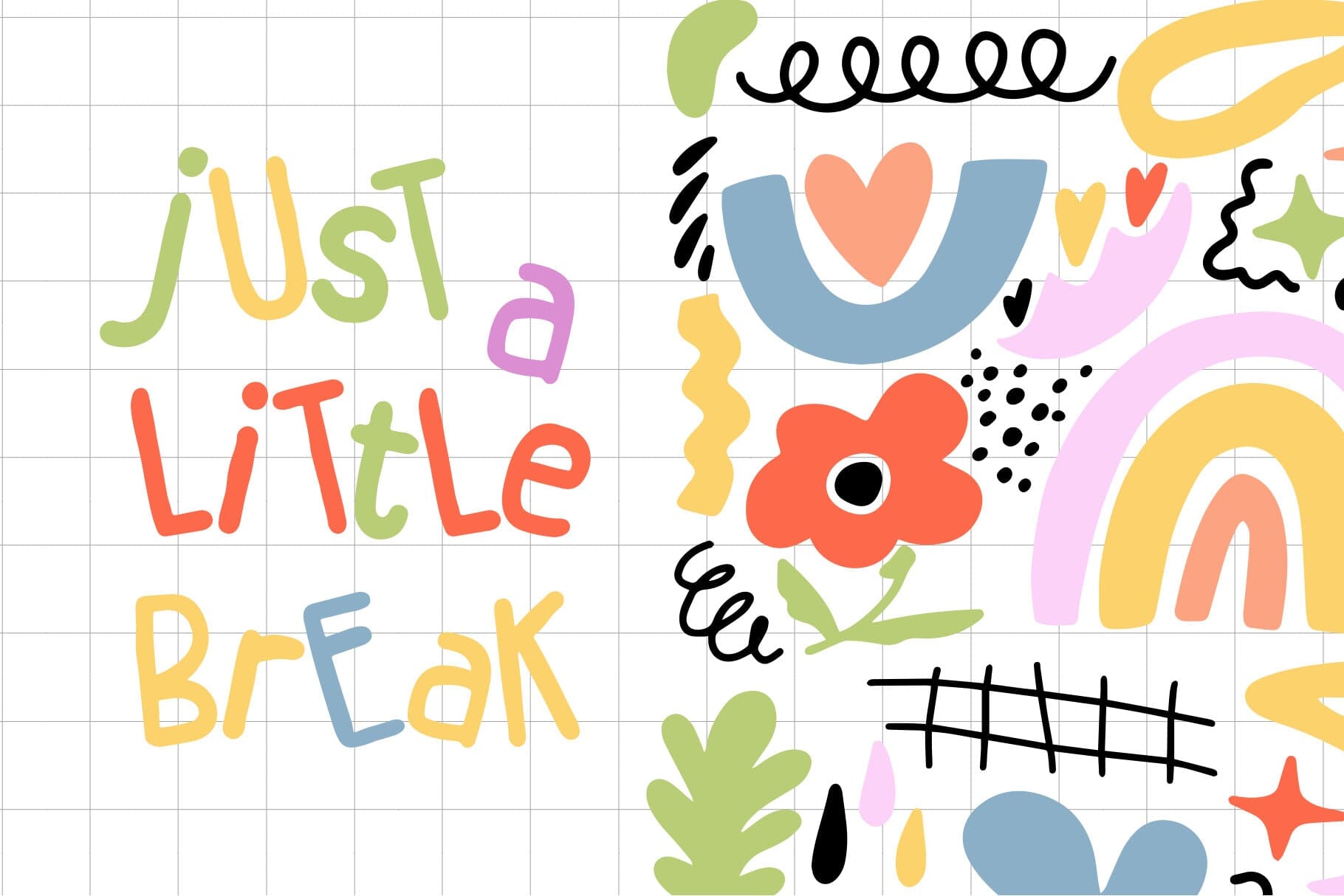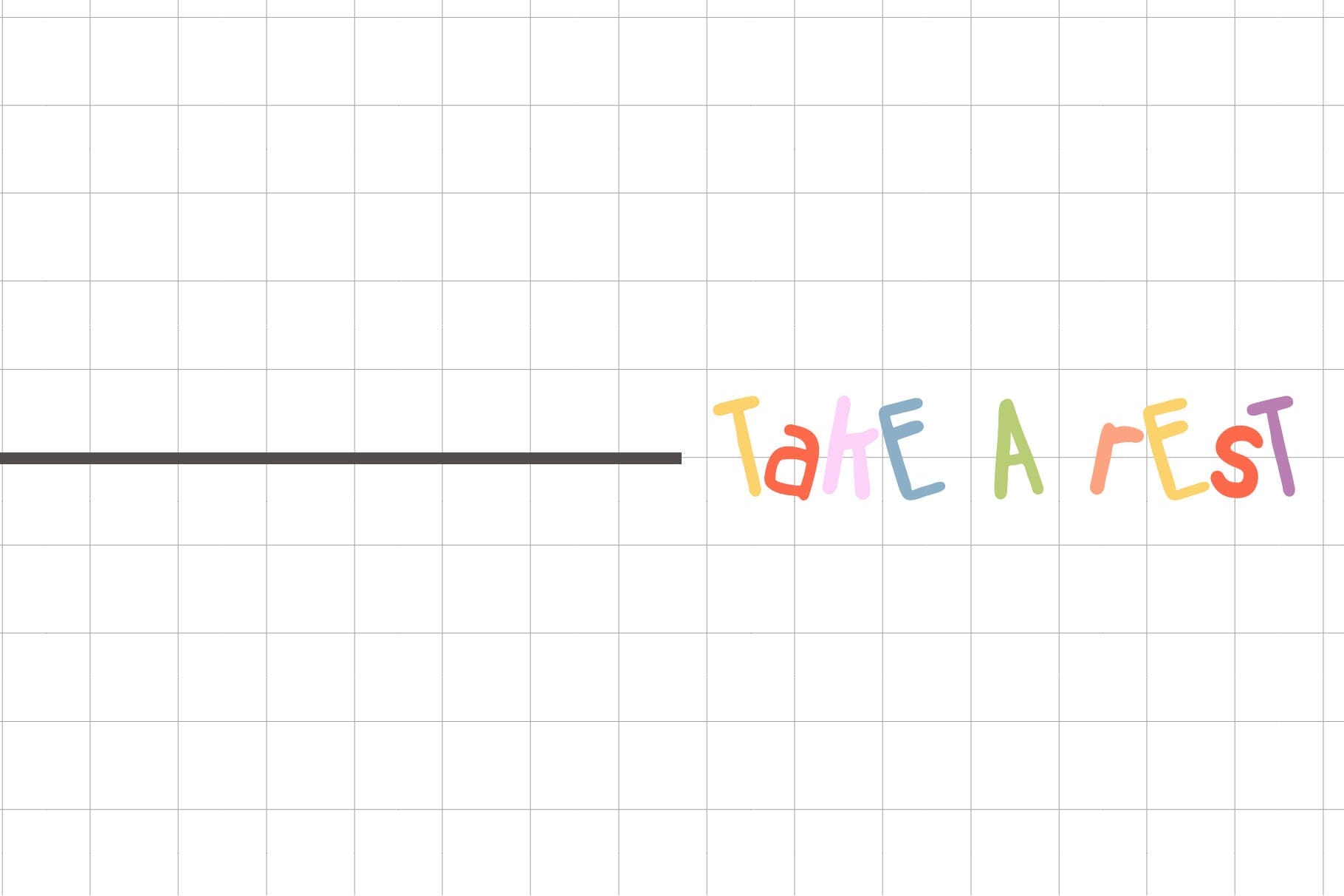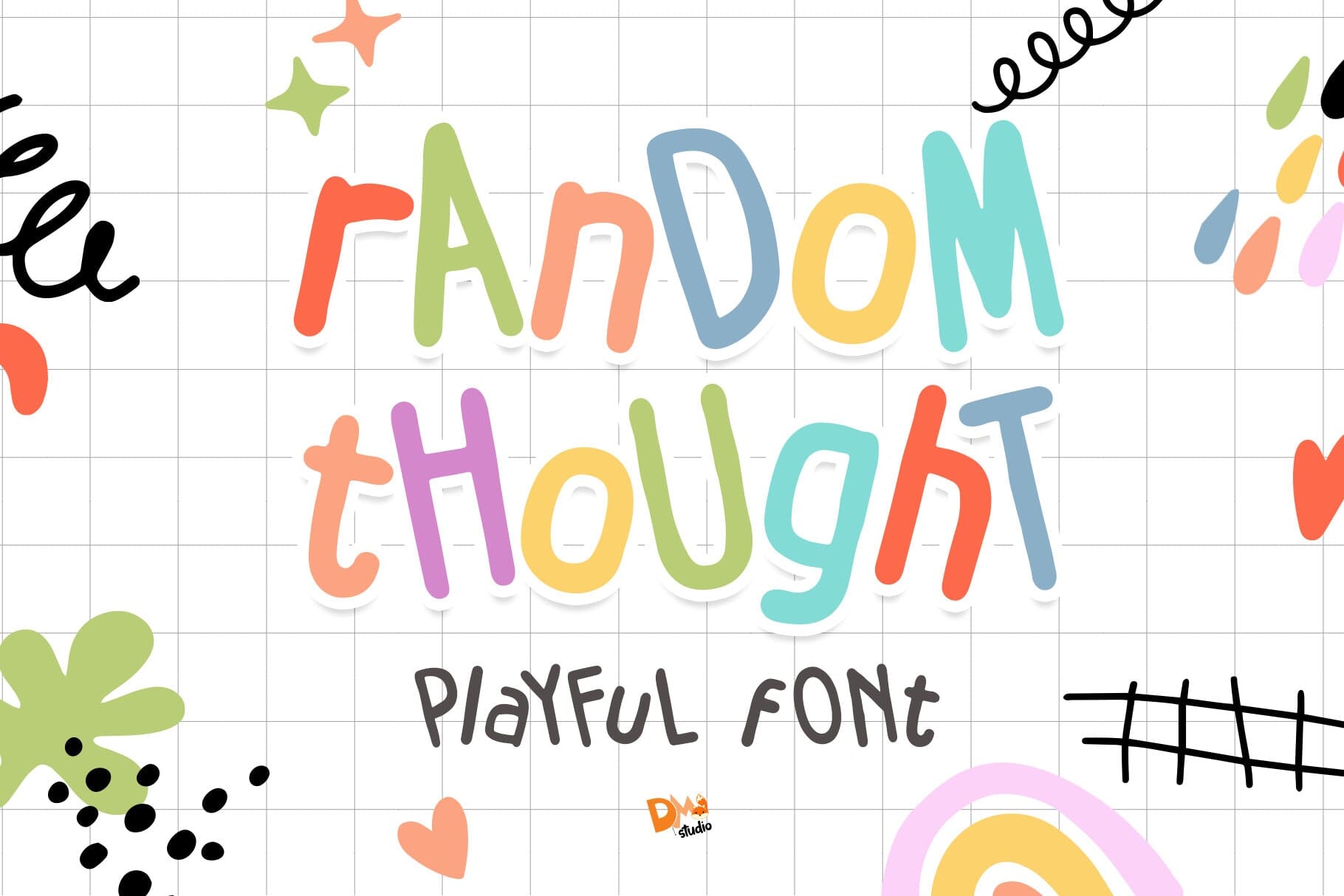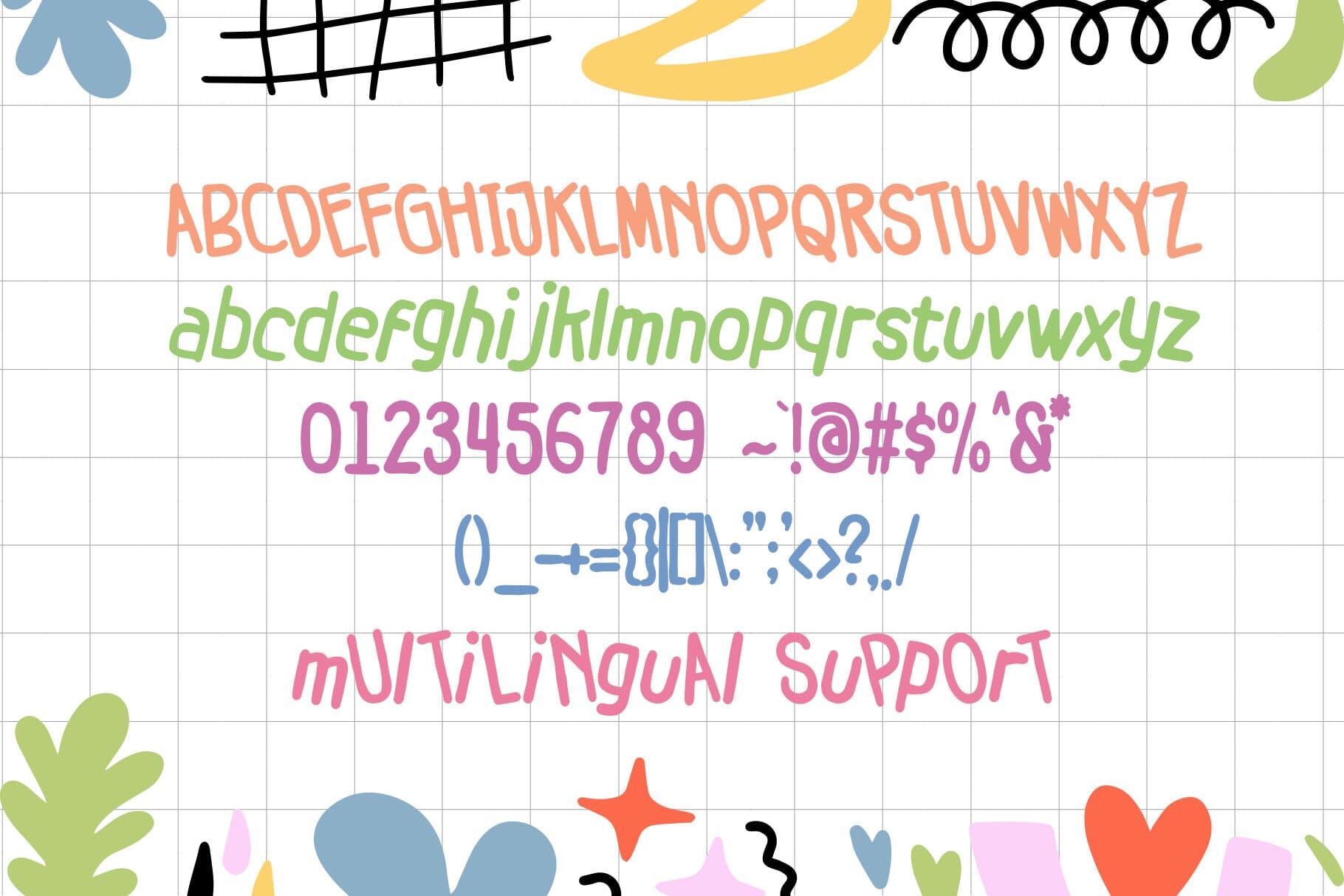
Random Thought Font – Free Quirky Typeface for Creative Designs
Discover the charm of spontaneous creativity with the Random Thought font, a lively and expressive typeface crafted for designers who think outside the box. With its quirky shapes, playful curves, and handcrafted feel, this font injects energy and originality into any project. Whether you’re designing logos, posters, greeting cards, or social media visuals, Random Thought adds a spark of imagination and uniqueness to your typography.
Dynamic and Expressive Design
The Random Thought font showcases a visually exciting design, blending casual strokes with irregular letterforms to convey spontaneity and creativity. Each character has a handcrafted quality, making it feel authentic and emotionally engaging. This style is especially effective for creative brands, bold headlines, and artistic compositions.
Complete Character Support
The font includes both uppercase and lowercase letters, punctuation, numbers, ligatures, and special characters. This comprehensive character set allows for flexibility in layout and visual tone, giving you the freedom to experiment and play with your text designs.
Bring Spontaneity to Your Design Projects